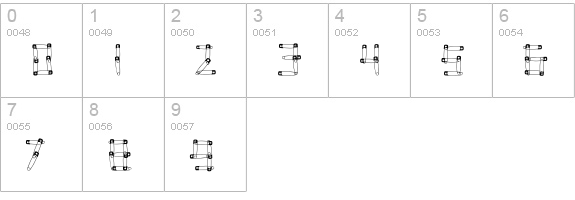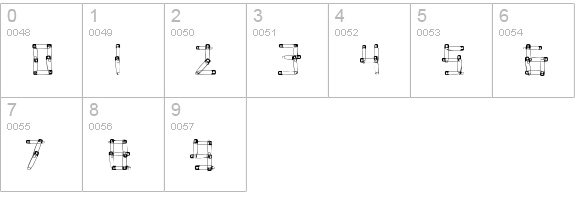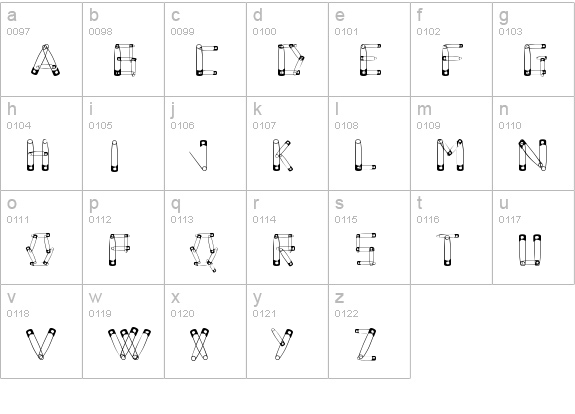
SafetyPinned Font Details
SafetyPinned font is a unique and eye-catching typeface that will add a touch of edginess to any design project. Its bold and jagged letterforms are reminiscent of safety pins, creating a visually striking and rebellious aesthetic. This font is perfect for those looking to make a statement. Whether you are designing a punk-inspired album cover, a poster for a rock concert, or a logo for a cutting-edge fashion brand, SafetyPinned font will grab attention and leave a lasting impression. Not only does SafetyPinned font offer a bold and edgy design, but it is also available for free! That's right, you can freely download this font at FontsMarket.com. This means that you can add a dose of rebellious style to your projects without breaking the bank. SafetyPinned font is versatile and can be used in various design contexts. Its bold and jagged letterforms make it perfect for headlines, titles, and branding materials. It can also be used for body text, adding a unique and unexpected element to your designs. So why wait? Download SafetyPinned font for free at FontsMarket.com and start adding a rebellious edge to your designs today.